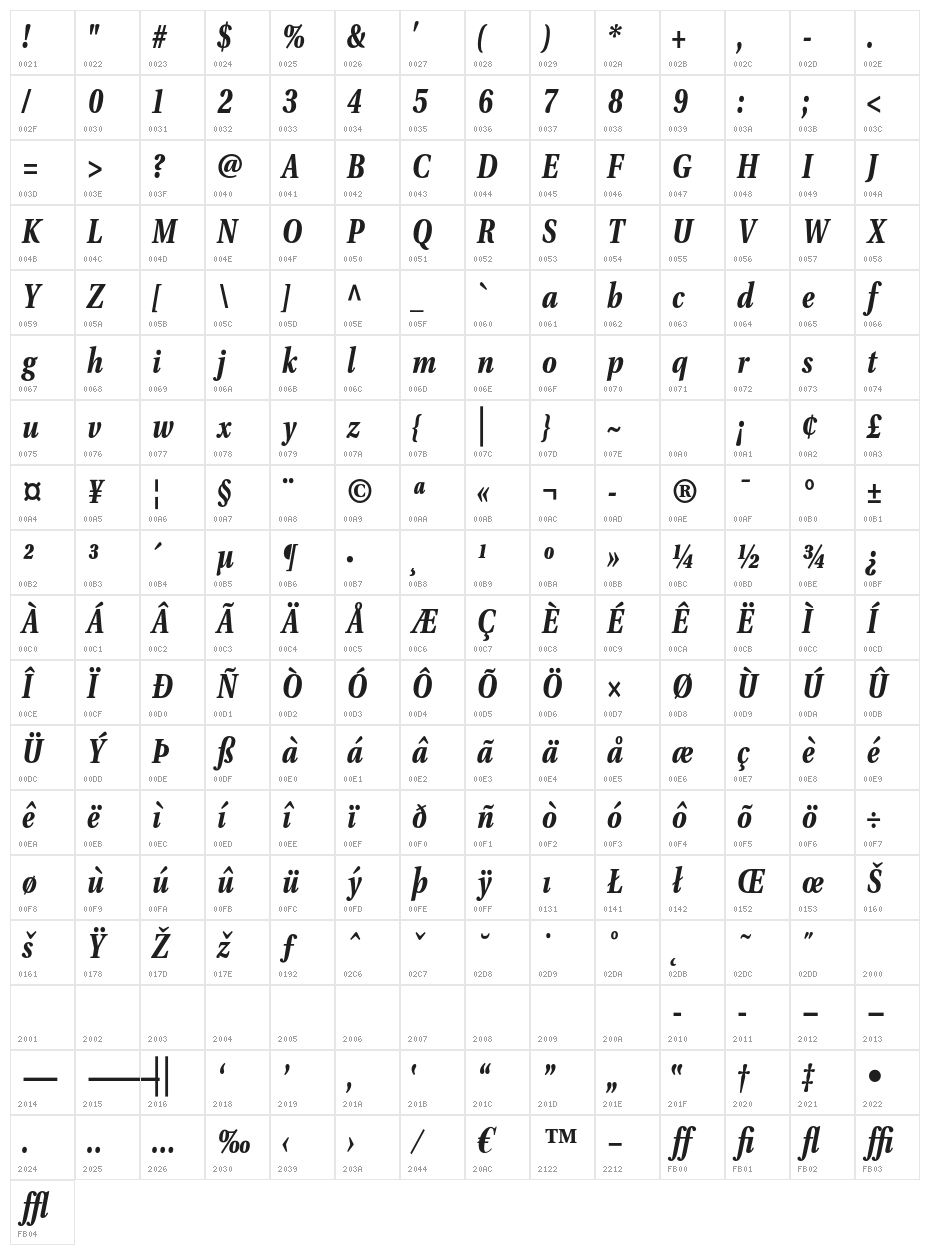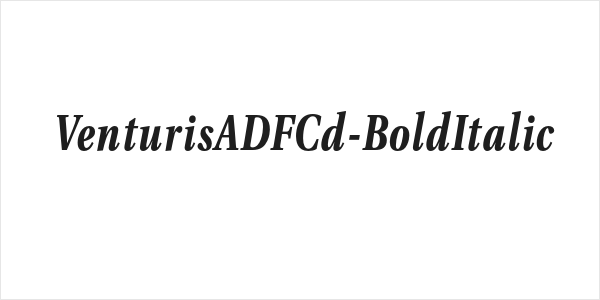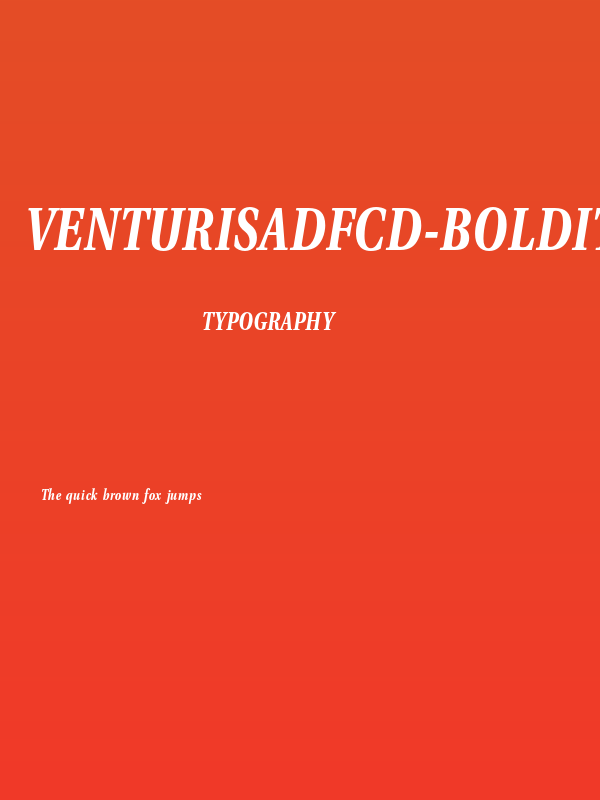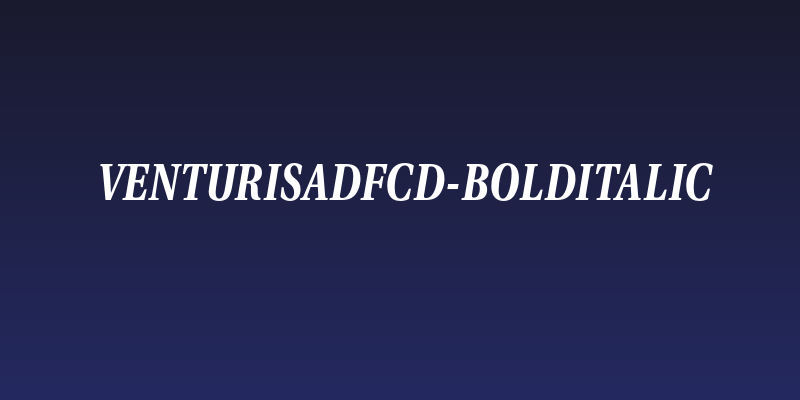
VenturisADFCd-BoldItalic Font
VenturisADFCd-BoldItalic Description
This font exhibits a classic serif style with a bold and italicized appearance, providing a sense of elegance and sophistication. The serifs are pronounced, adding a traditional touch, while the italic slant gives it a dynamic and forward-moving feel. The characters are well-defined with moderate contrast between thick and thin strokes, enhancing readability. The overall design is balanced, making it suitable for both formal and creative applications. The numerals and special characters maintain the same stylistic features, ensuring consistency across all text elements.
| Use Case | Headlines, Logos, Editorial design |
| Proposed Projects | Ideal for book covers, formal invitations, branding materials, and editorial design. |